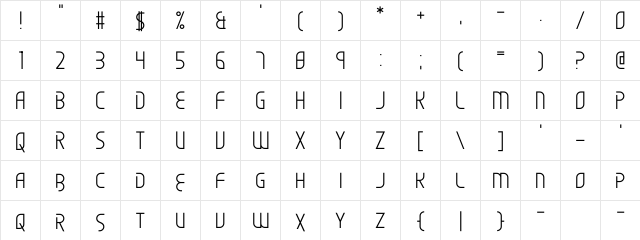
Scared of the Unknown Regular
| Designer | Allison James |
Design Context for Scared of the Unknown Typeface
Scared of the Unknown is a composed and adaptable typeface that performs quietly and consistently across a wide range of design contexts.